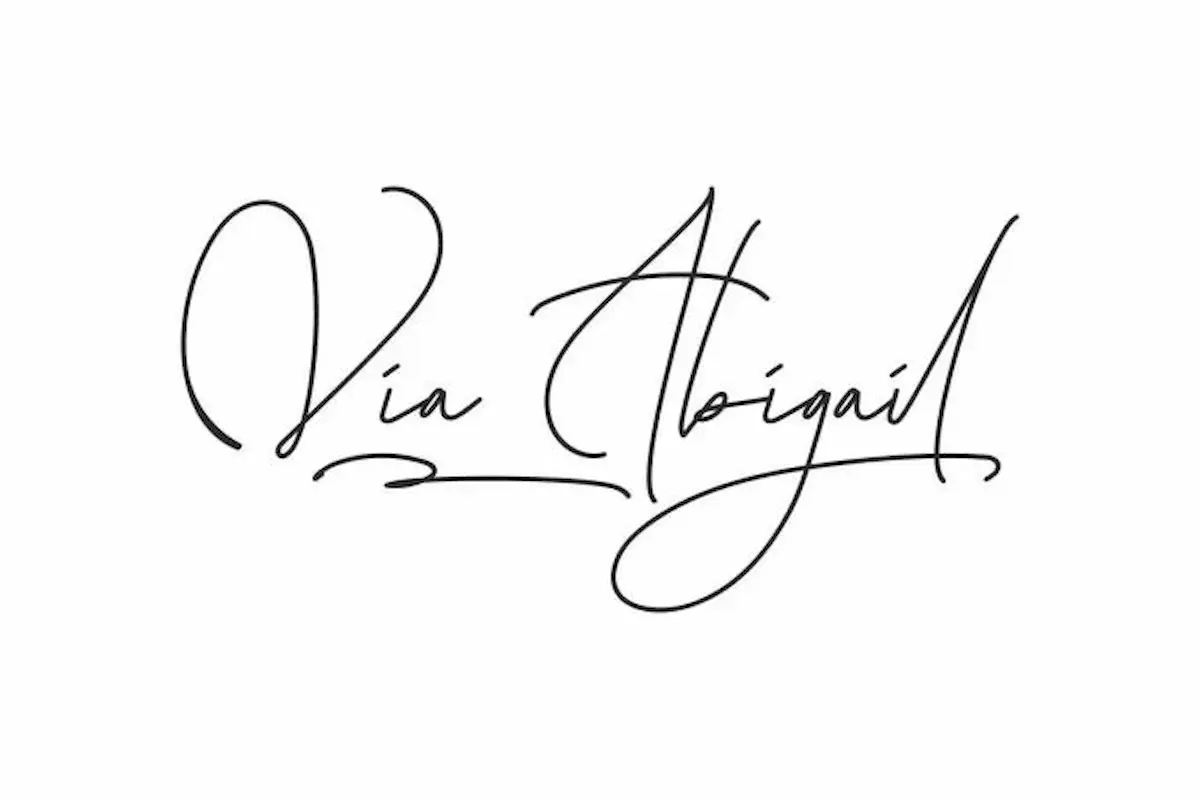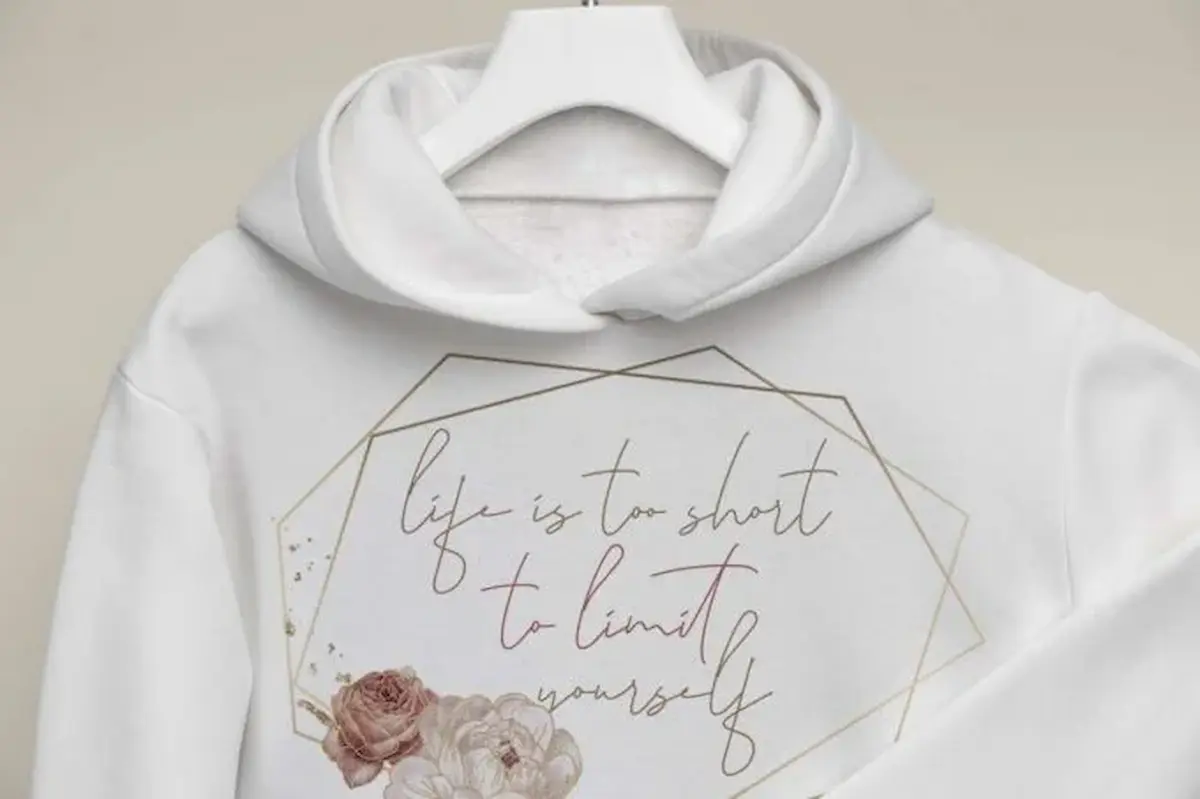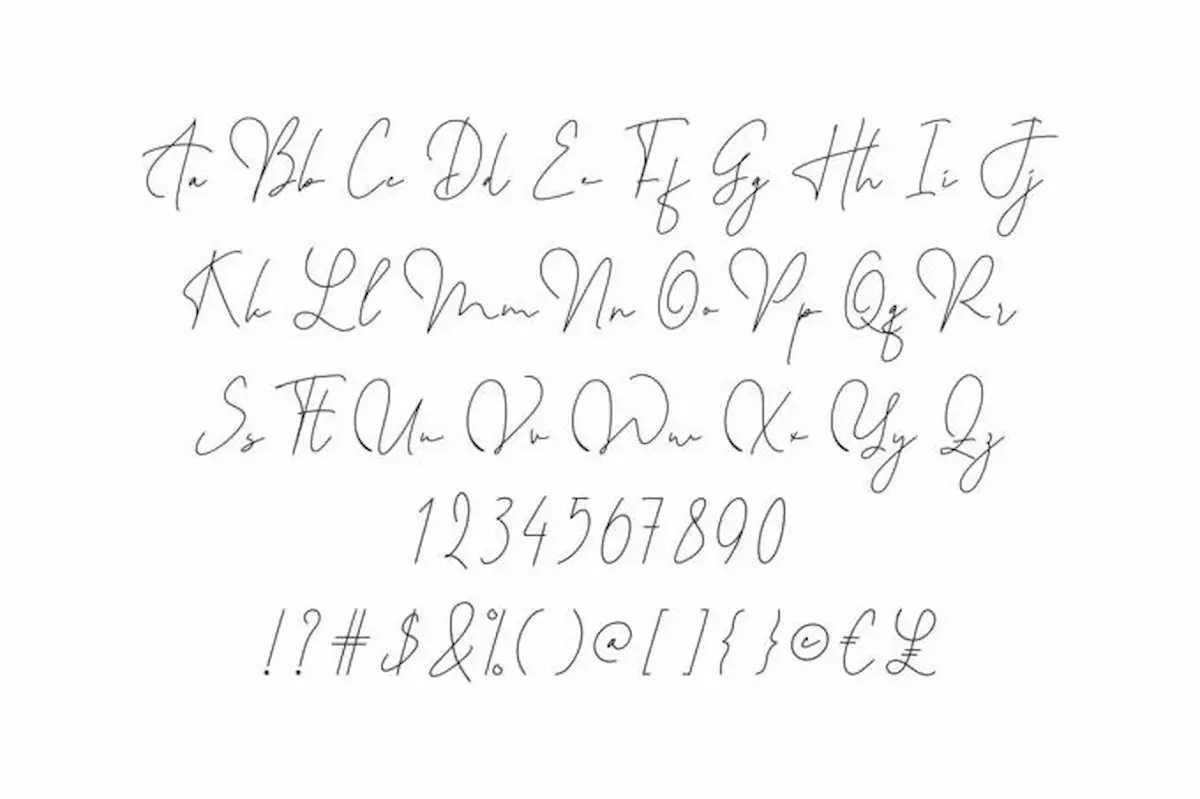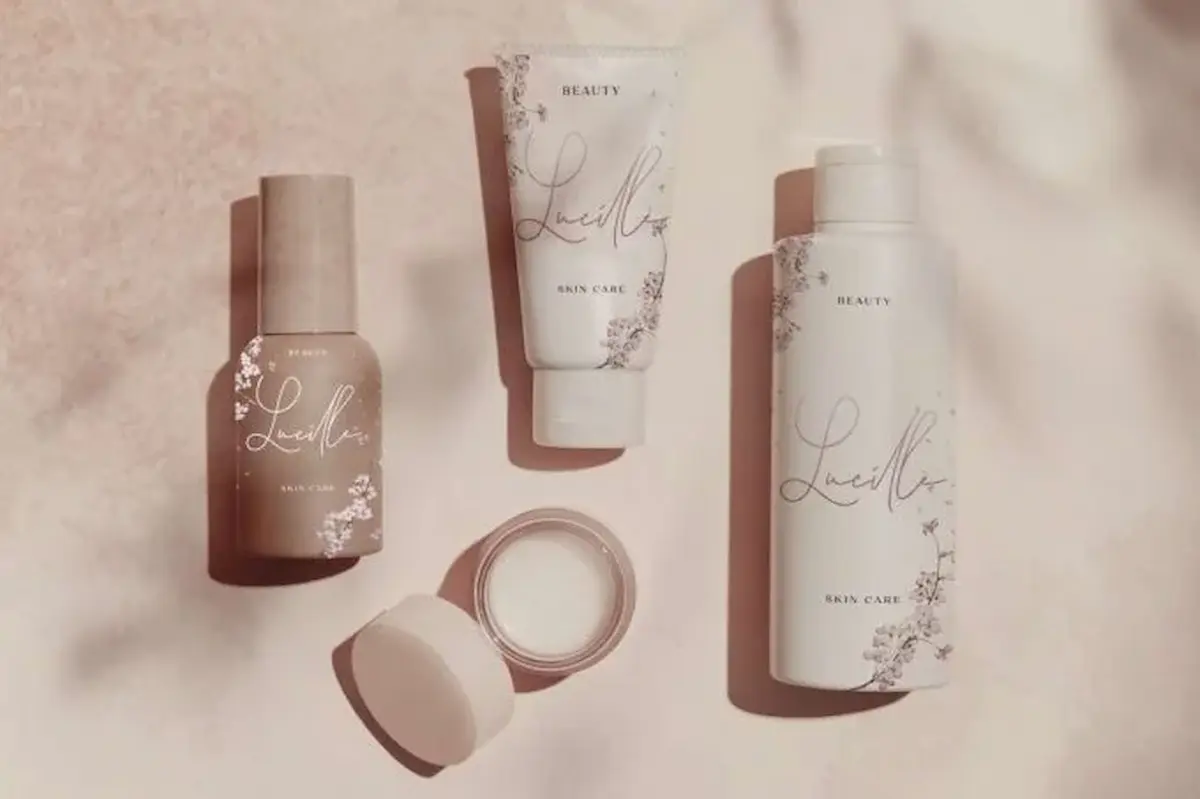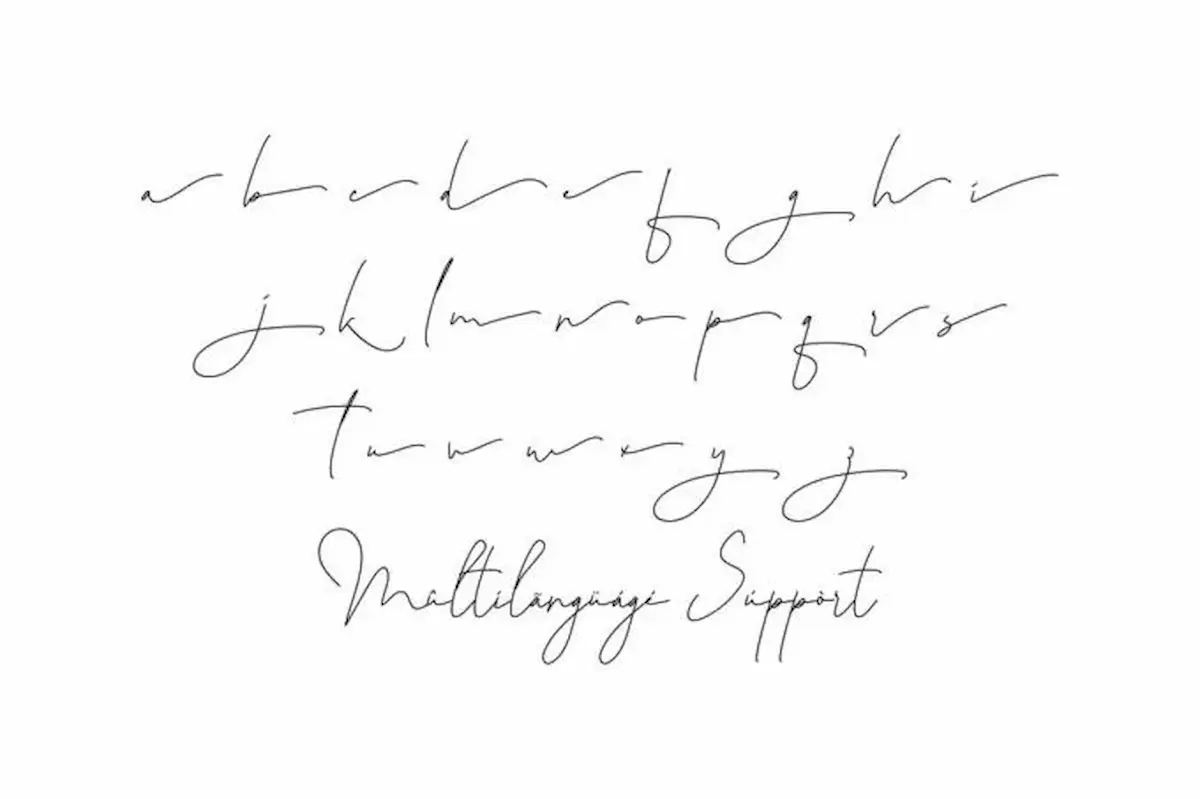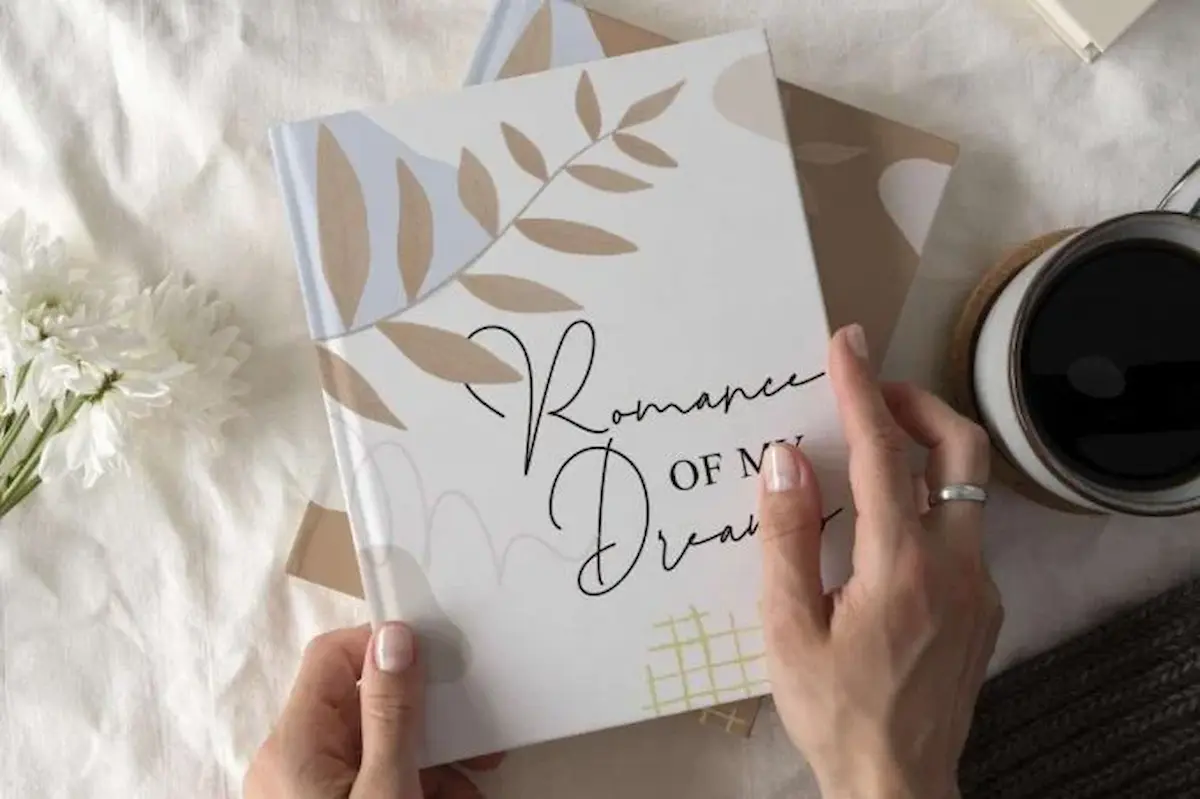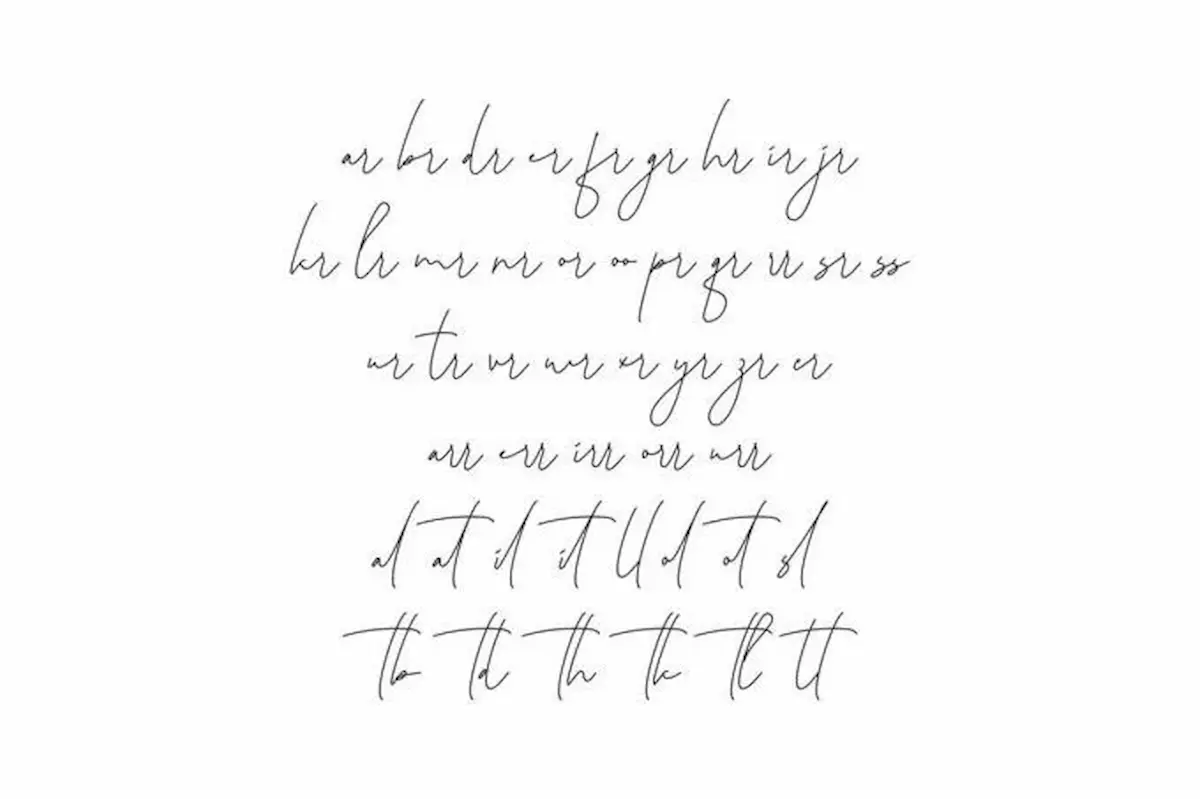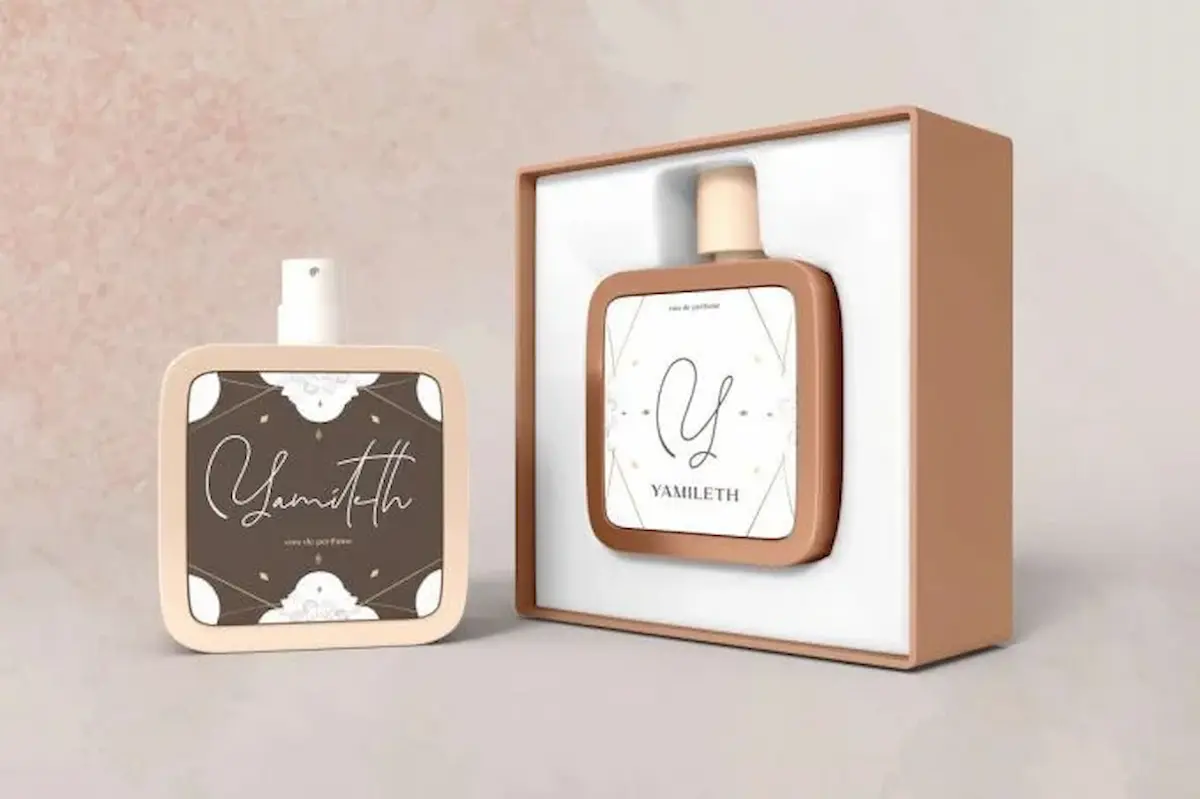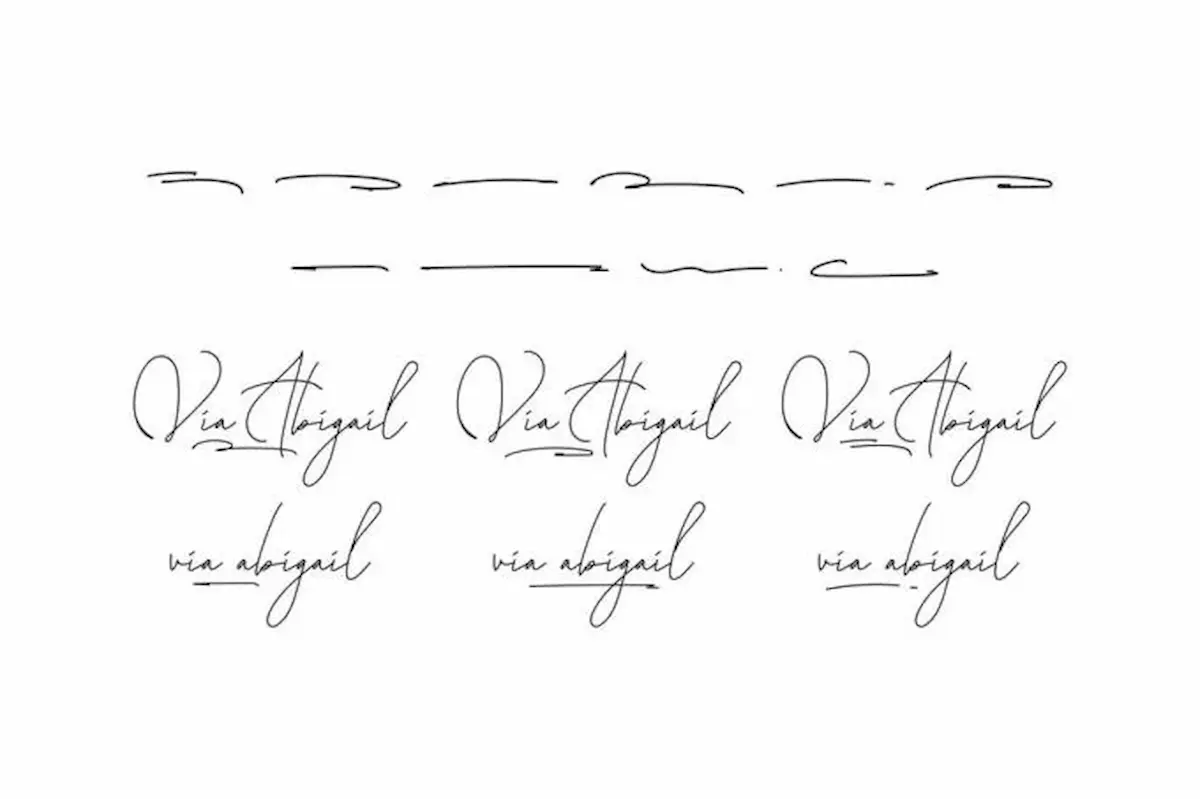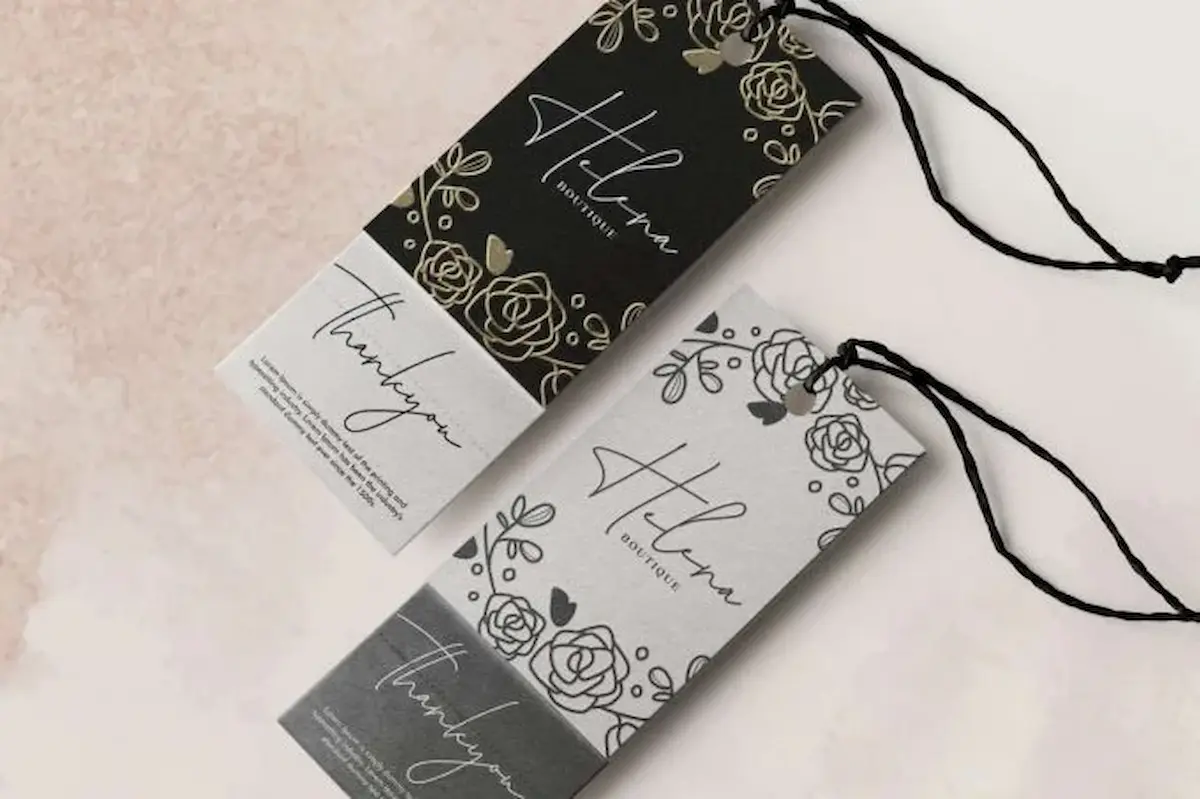
Via Abigail Font is a monoline signature with a sense of manual writing. This typeface will be suitable for logo, magazine, signage, fashion, florist, wedding, writers, and more!
Via Abigail Font is a modern signature with free flowing monoline by NihStudio can be use to create almost any type of design project such as printed materials. Via Abigail lends itself perfectly to book title, clothing brand, craft, cosmetic, florist, greeting card, label, packaging, quote art, signature style logo, stationery, wedding design or any purpose to make your design look pretty and trendy.
Via Abigail Font is an authentic and elegant handwriting made using real pen. The font will be suitable for typefaces and industries such as brand identity, business card, logos, magazine, signage, social media, stationery, fashion, florist and gardening, makeup artist, musician, travel, wedding events, writer, etc.